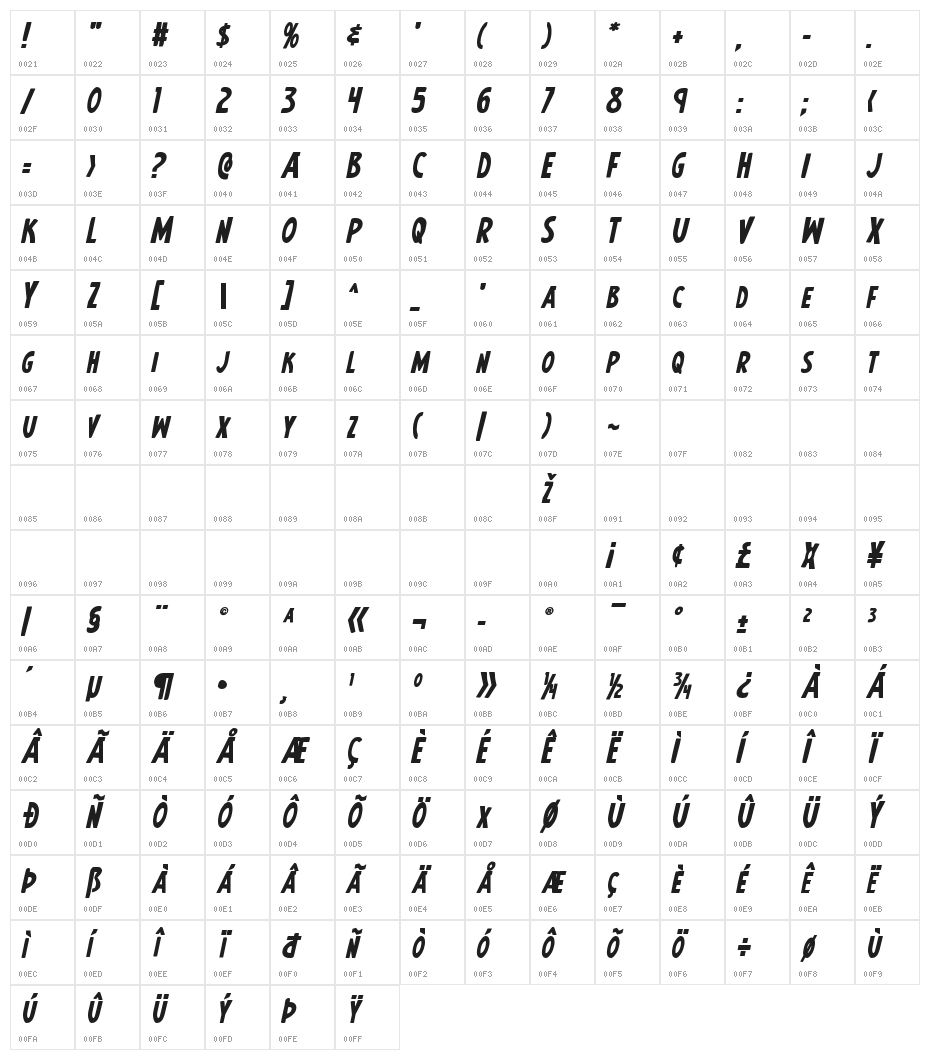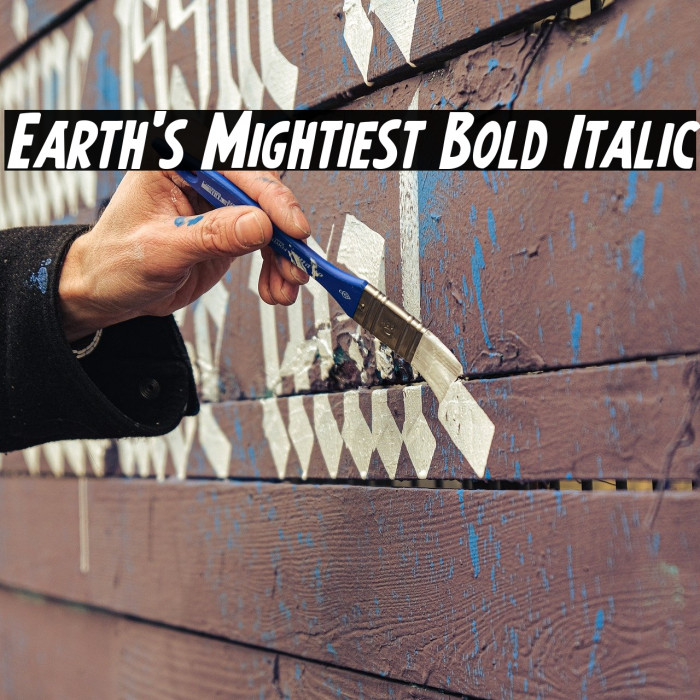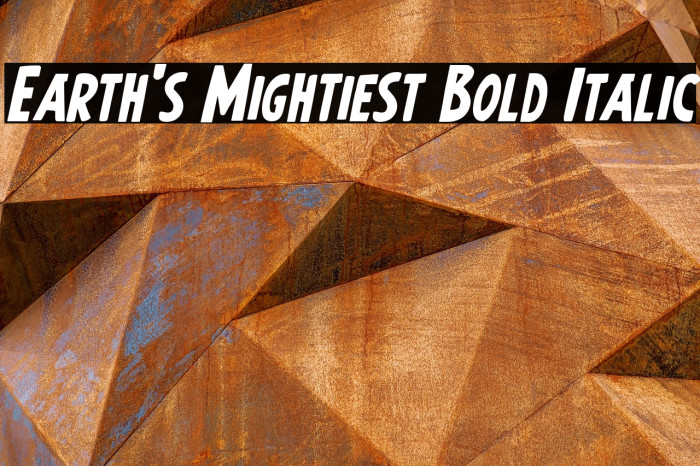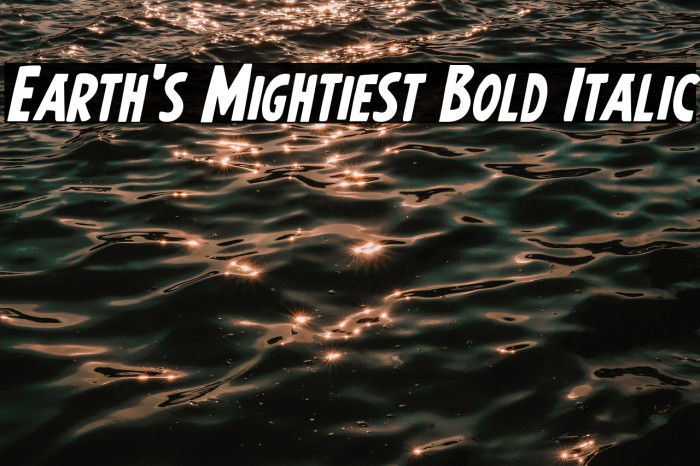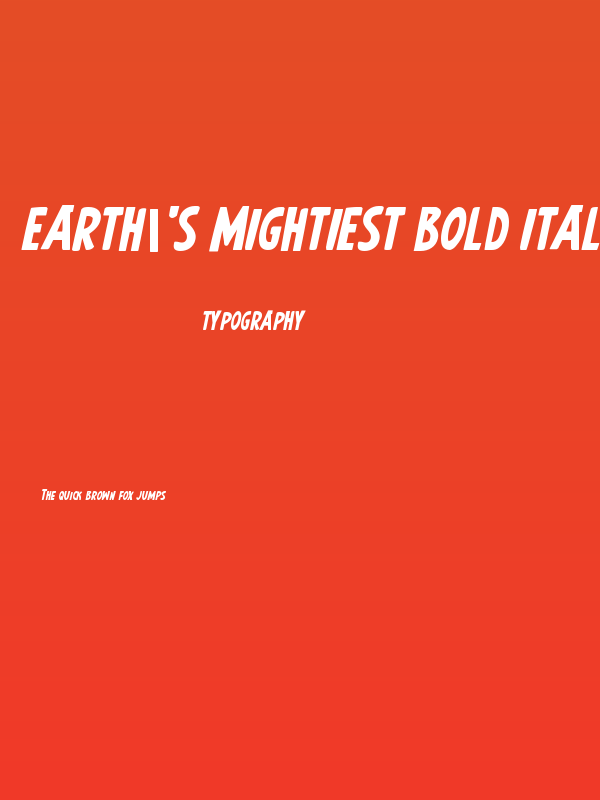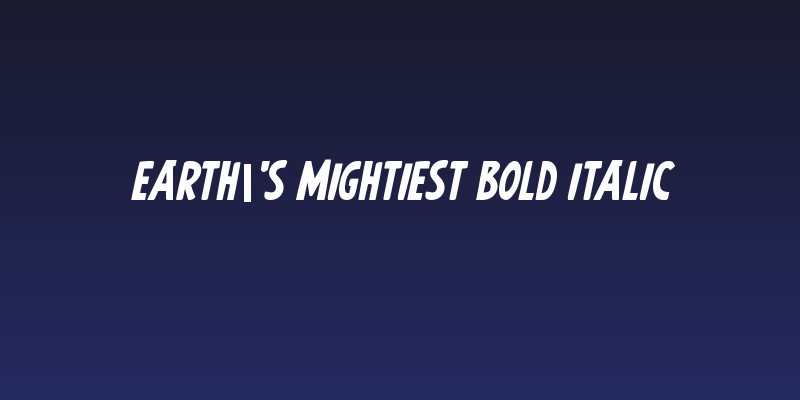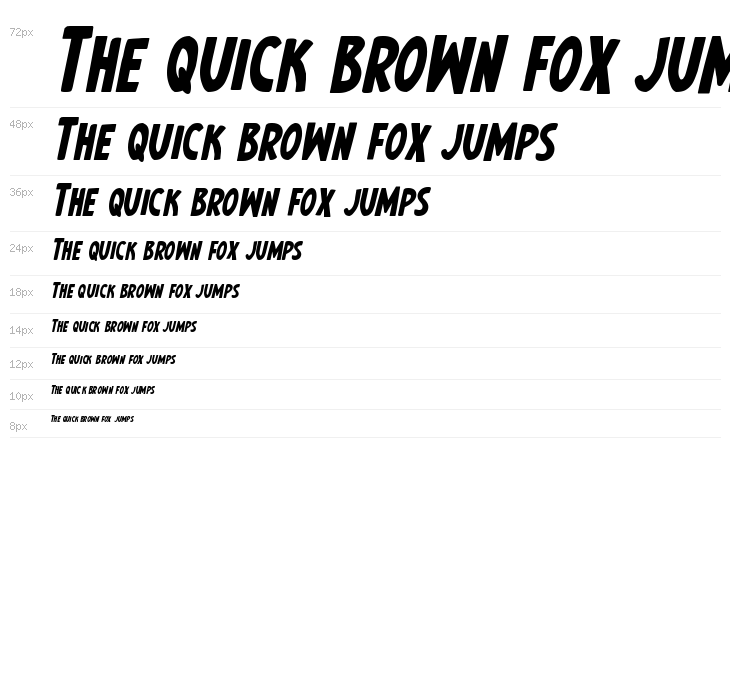
Earth's Mightiest Bold Italic Font
Earth's Mightiest Bold Italic Description
This font exhibits a bold and dynamic style, characterized by its italicized form and strong presence. The letters are slightly slanted, giving a sense of movement and energy. The strokes are thick and consistent, providing a robust appearance that commands attention. The font maintains a uniform width across characters, ensuring readability while adding a touch of flair. Its bold nature makes it suitable for impactful designs, where emphasis and visibility are key. The numbers and special characters follow the same stylistic cues, ensuring a cohesive look throughout.
Proposed ProjectsIdeal for posters, headlines, branding, and any project requiring a strong, attention-grabbing typeface.